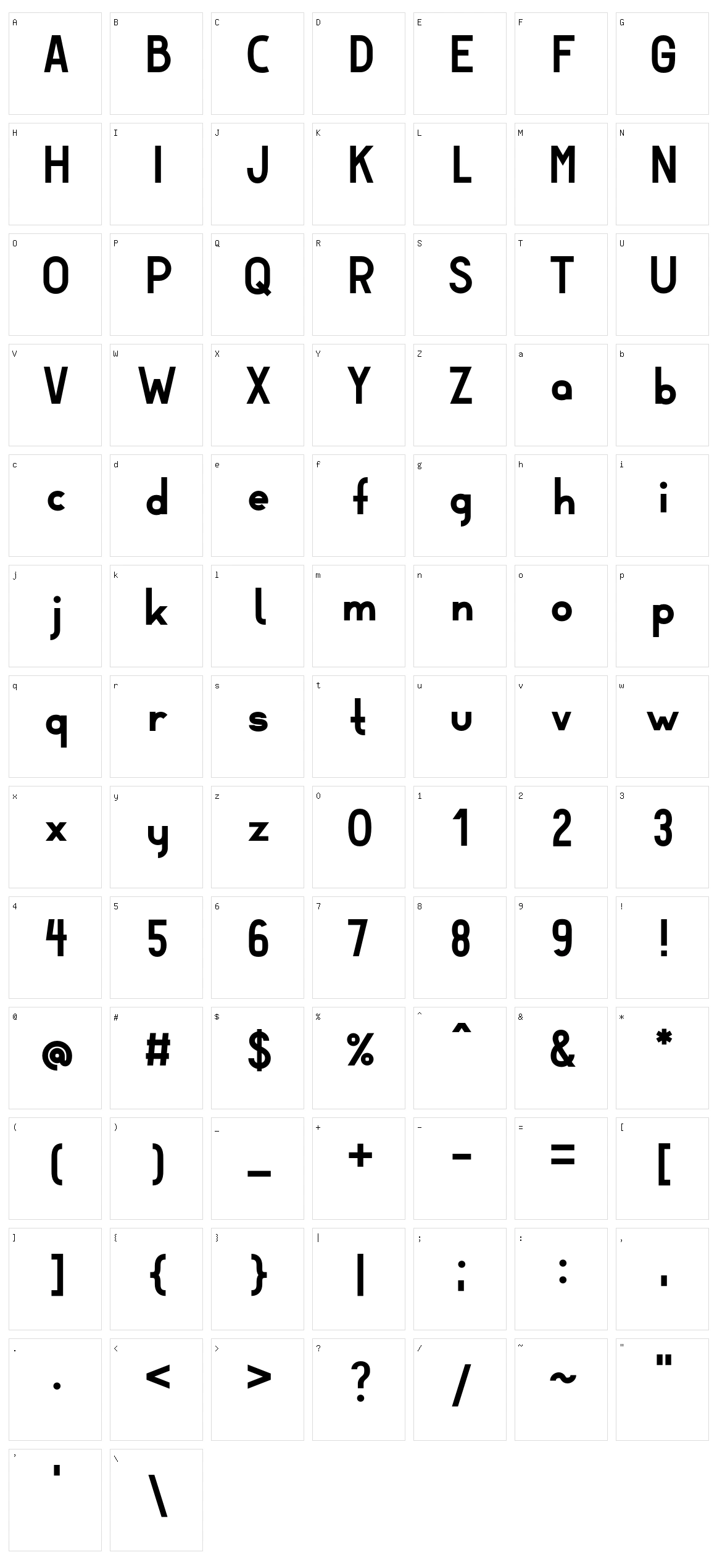
Montebello:
Montebello is a tall and slim variable font.
The regular versions come in two weights, light and bold, while the variable version offers everything in between.